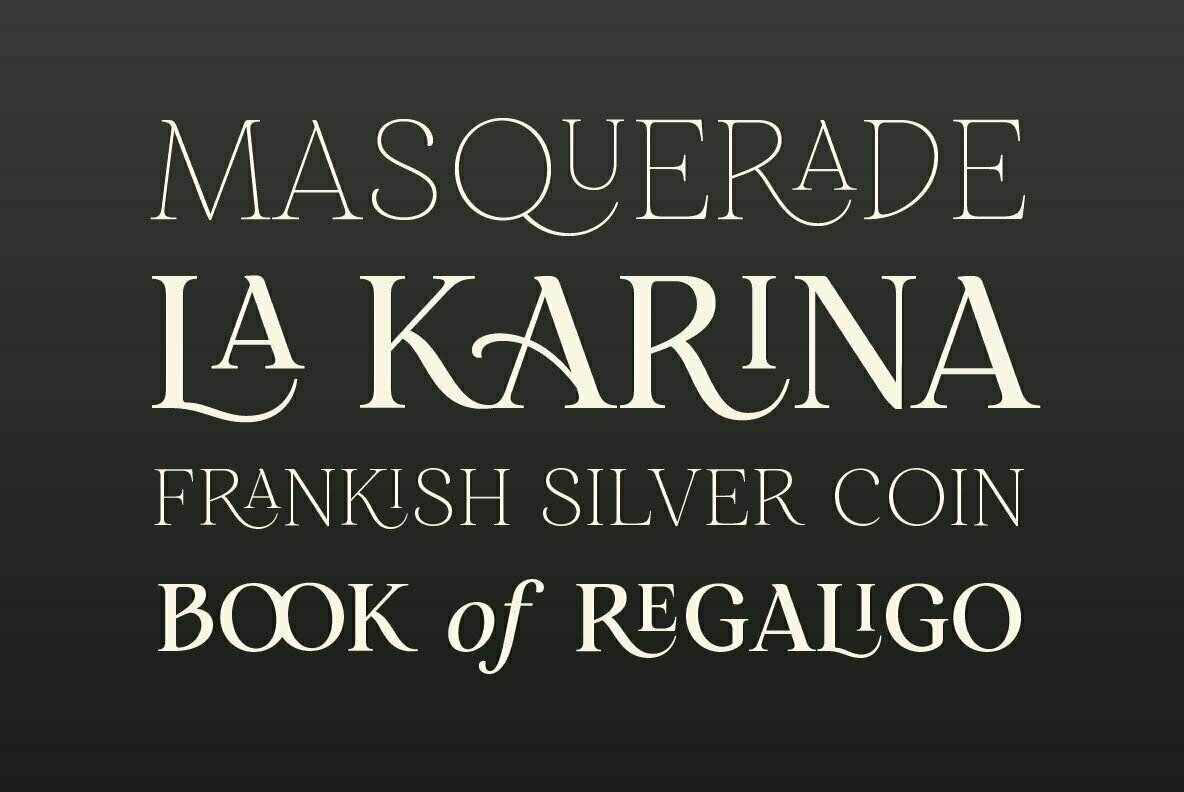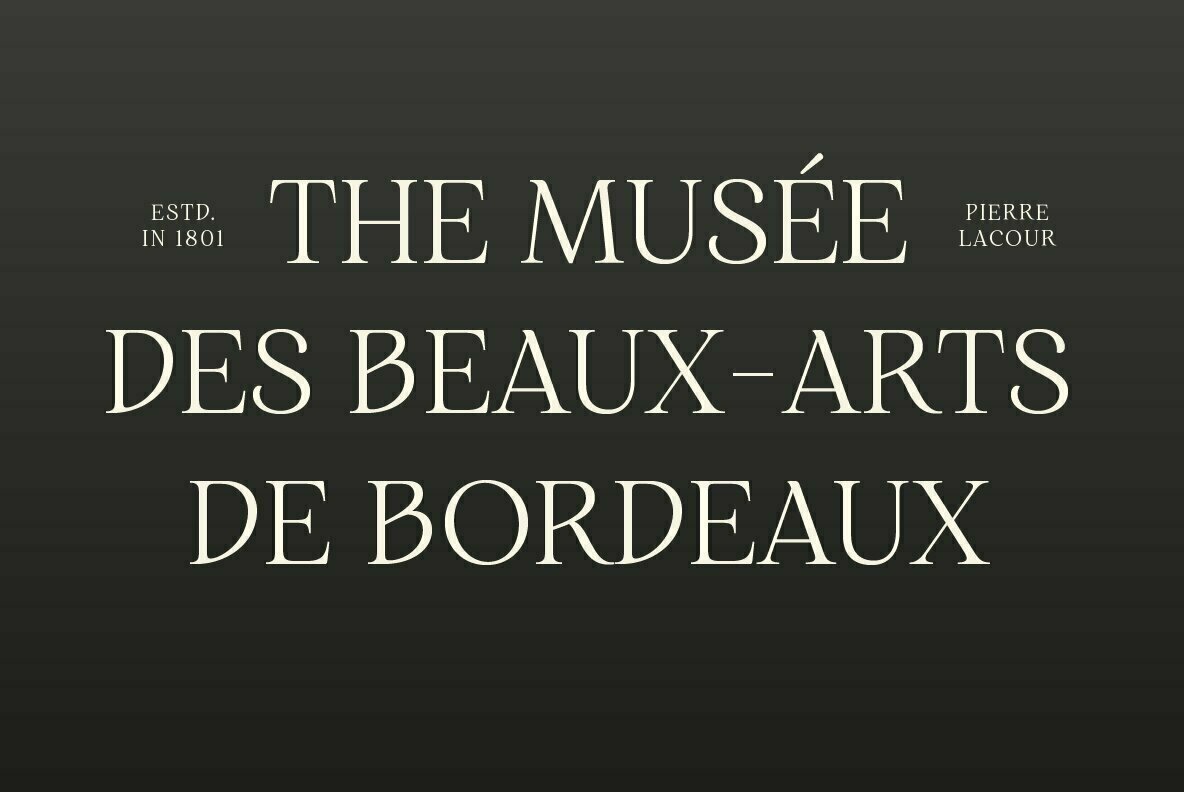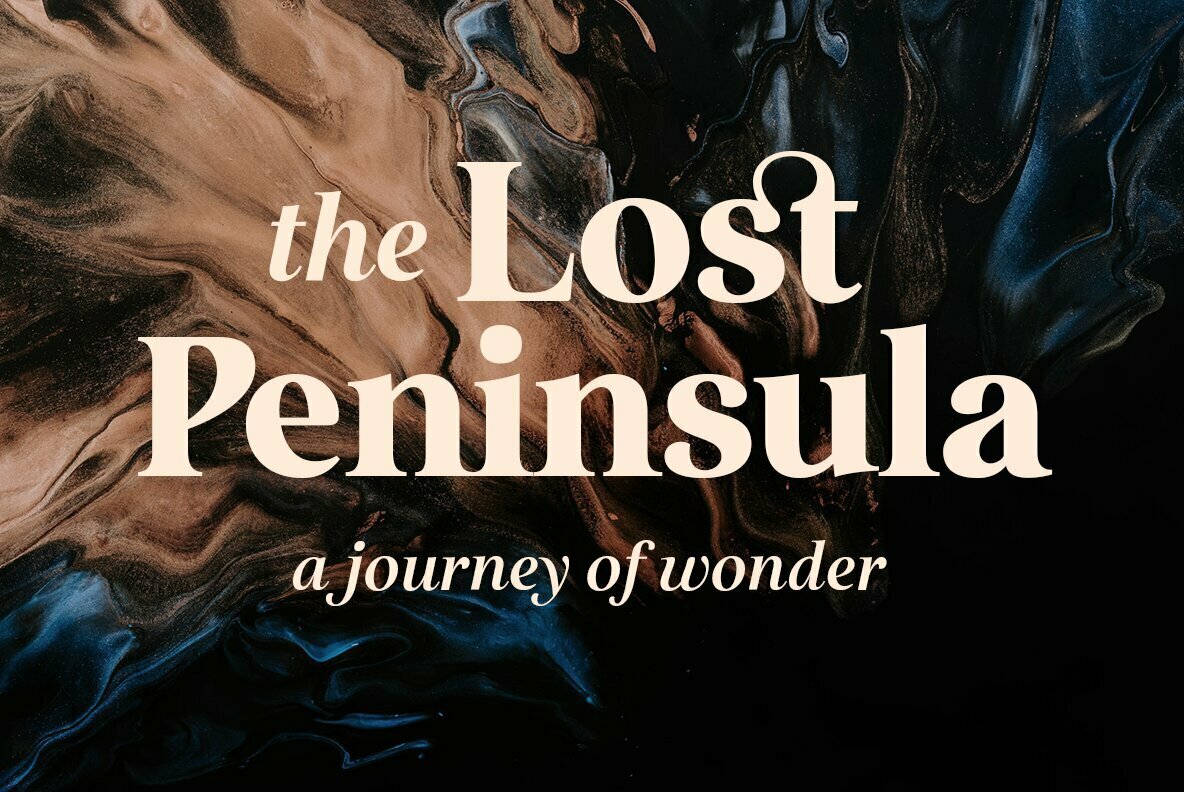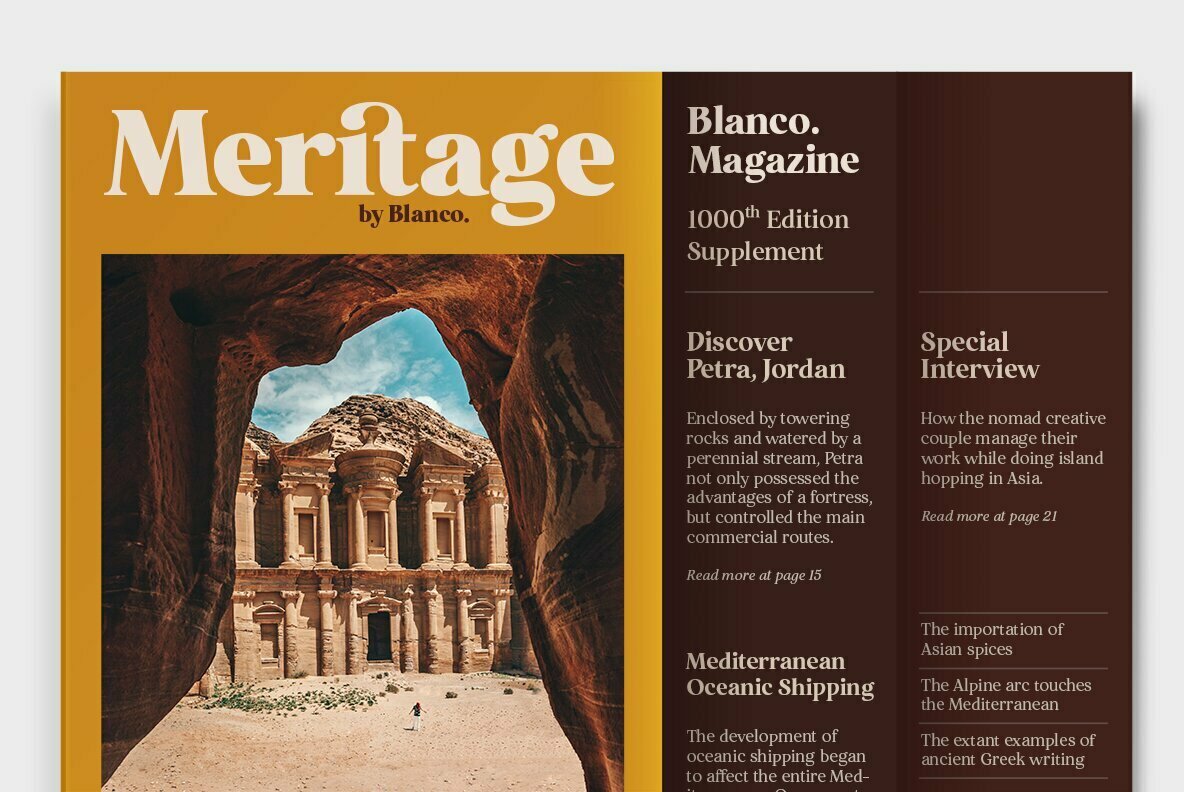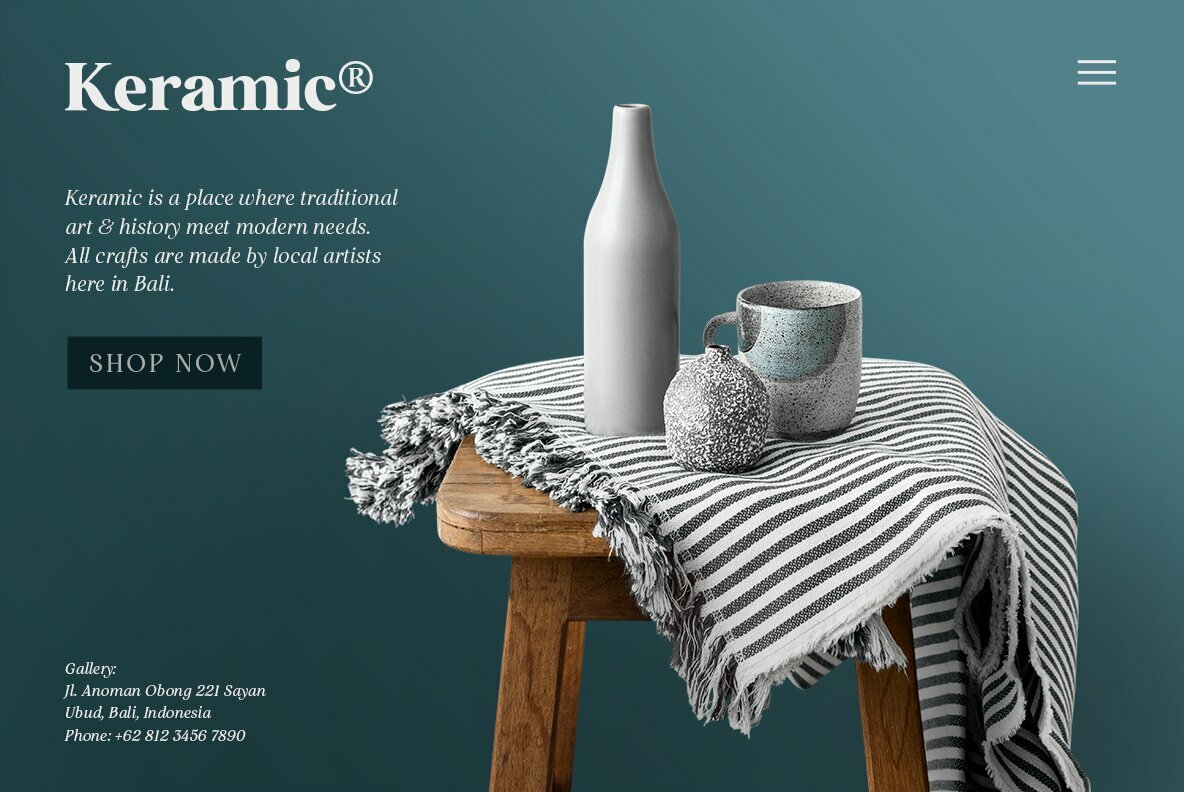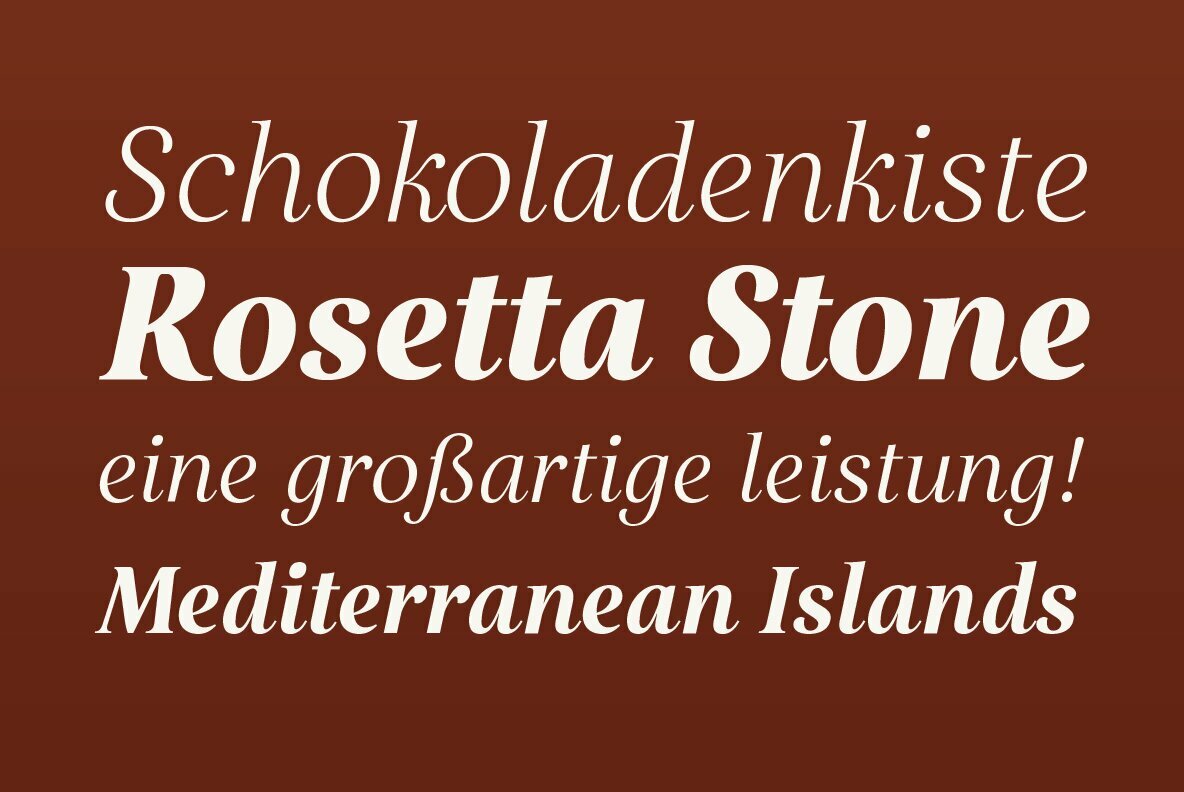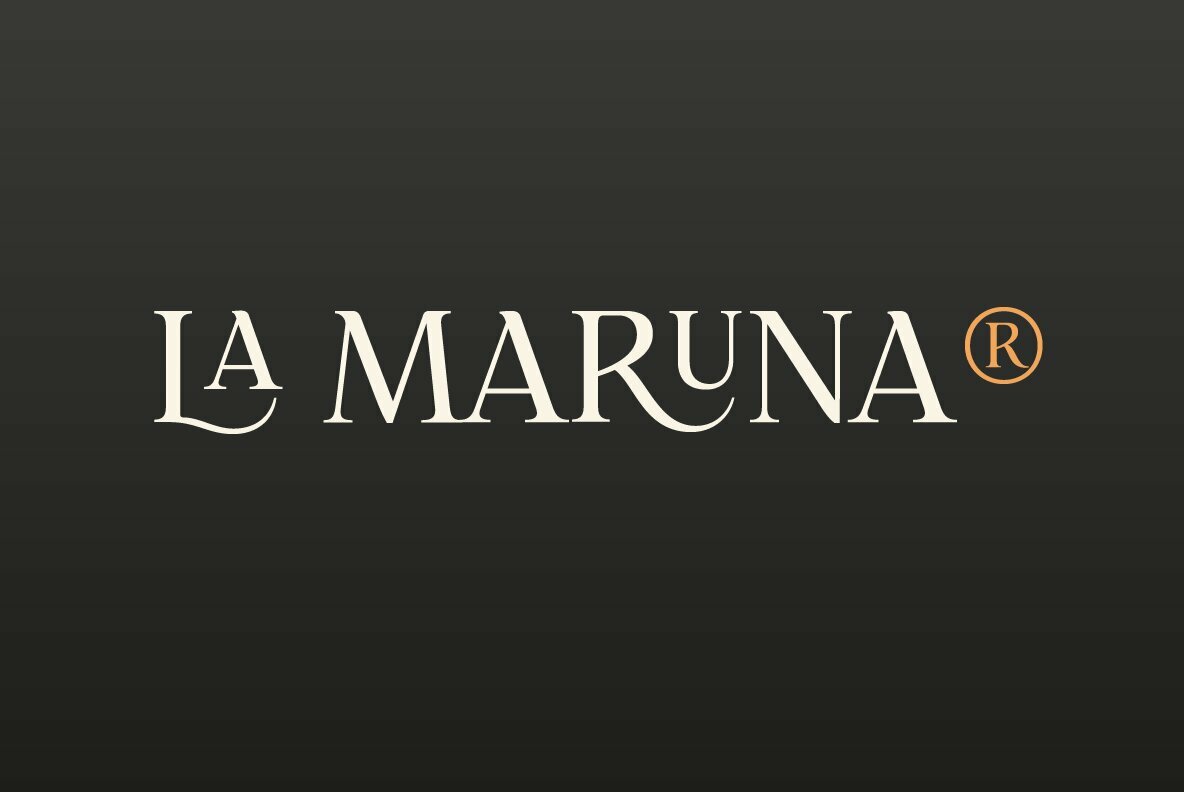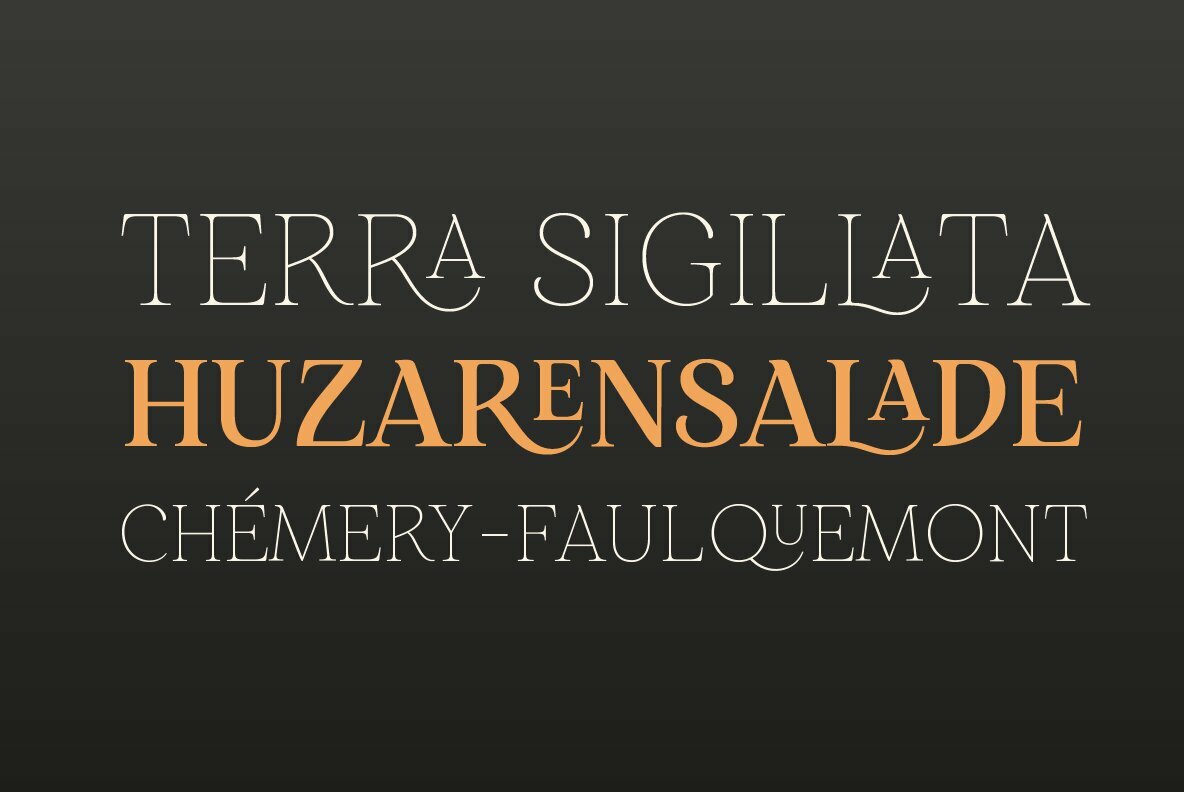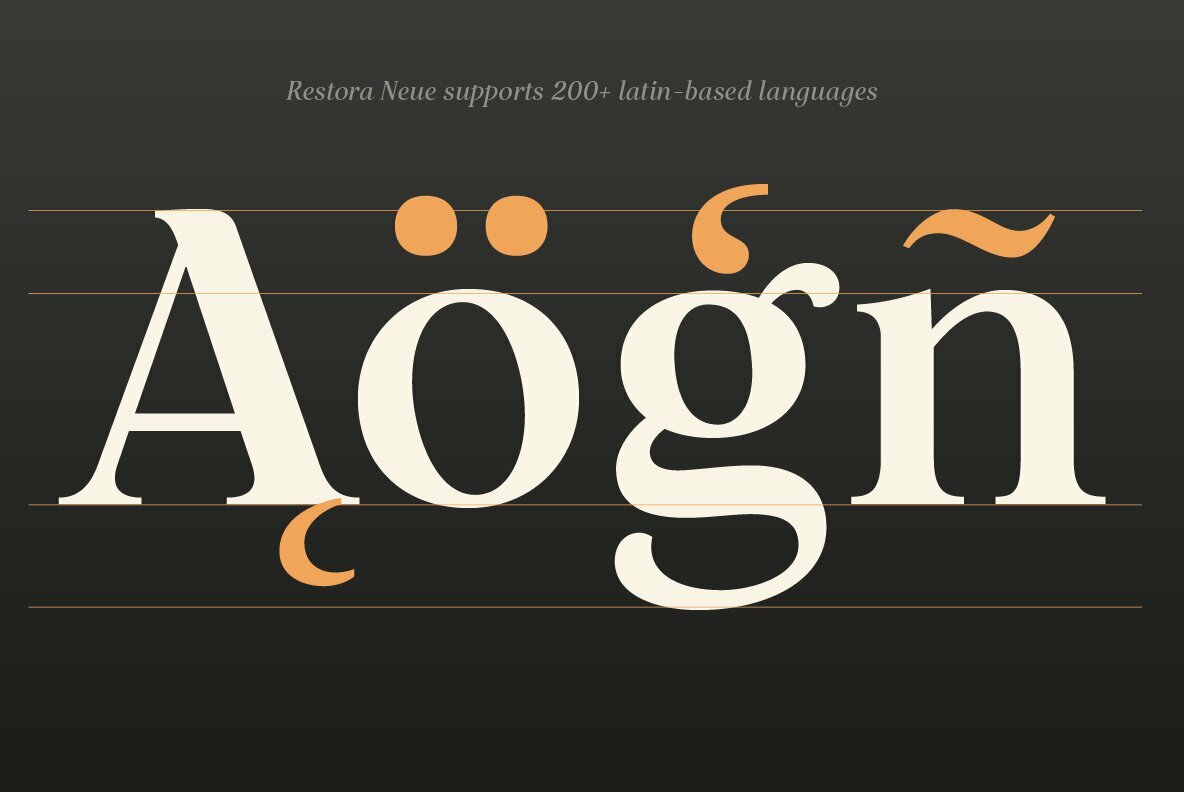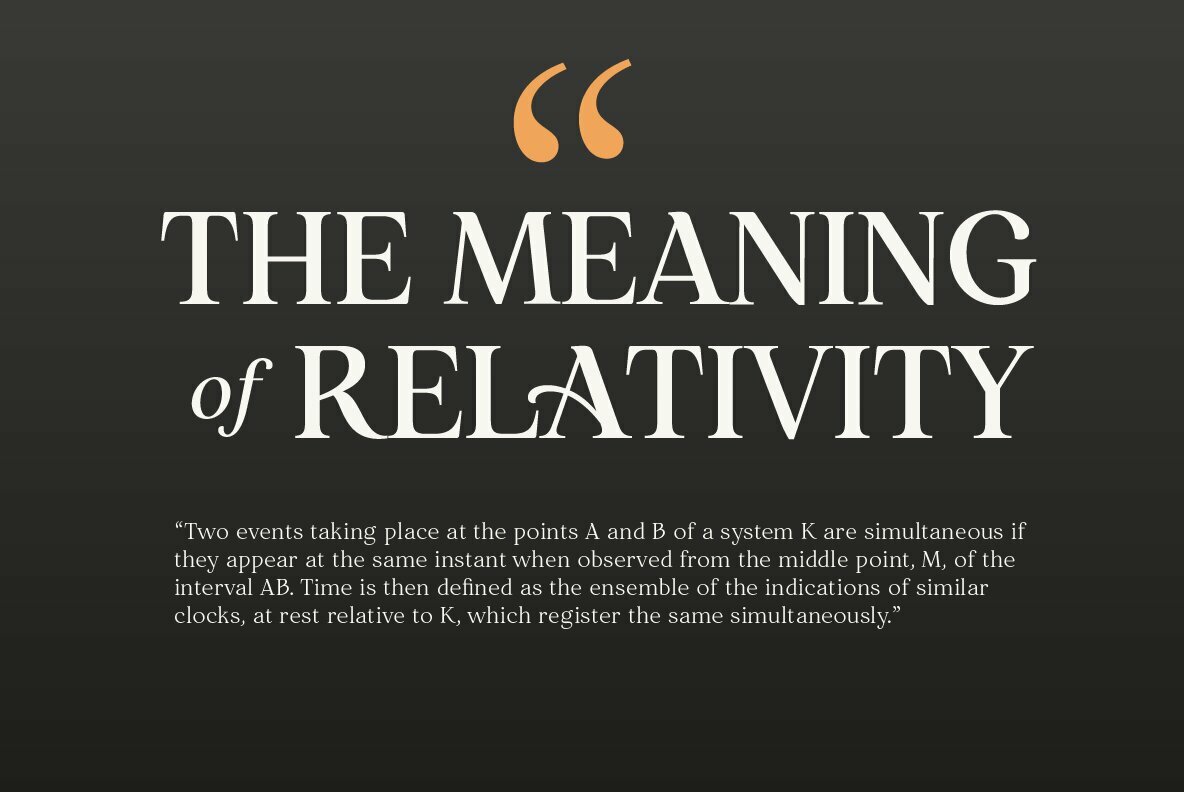
Restora Neue Font
Restora Neue is an evolution of its precursor, Restora. While Restora has a imperfect letterforms, Restora Neue comes with a cleaner shape and higher contrast. It’s a mix of old-style roman serif styles. Its sharp and longer serif with a bit touch of medieval, makes Restora Neue a versatile type family that can be used in many different themes of design projects, from classic style to modern.